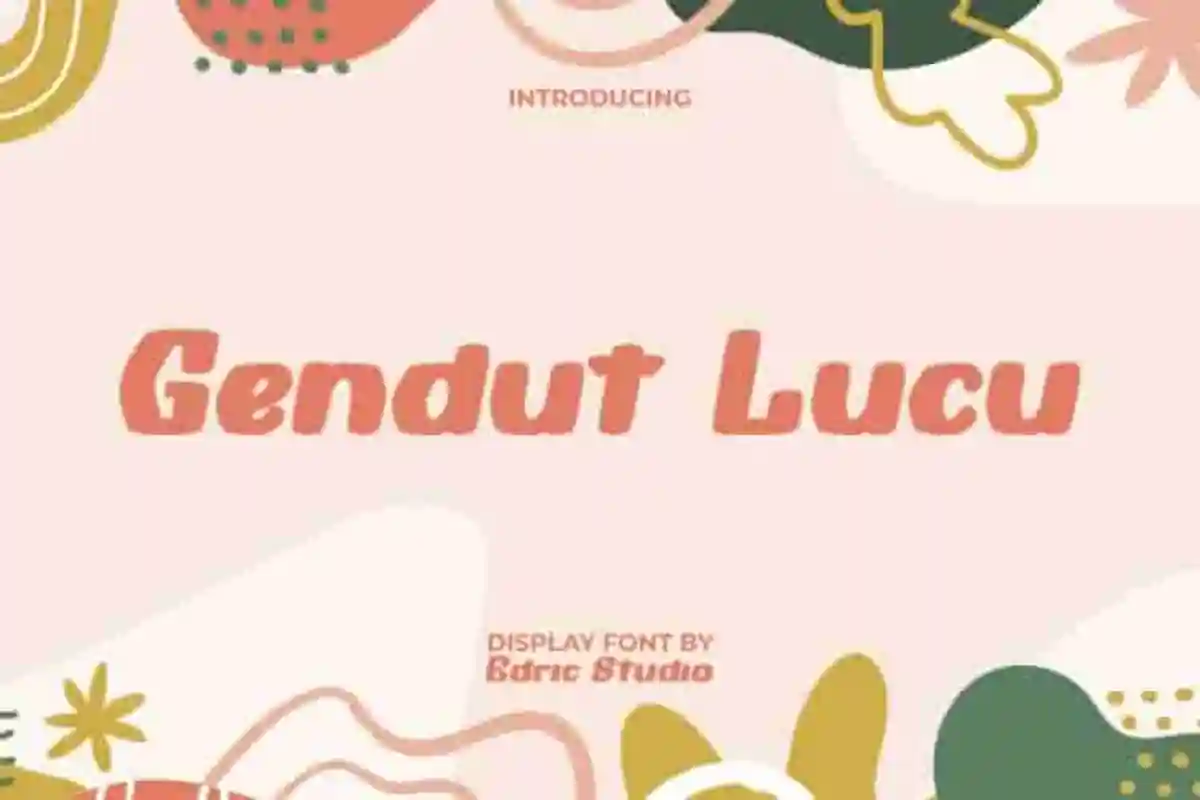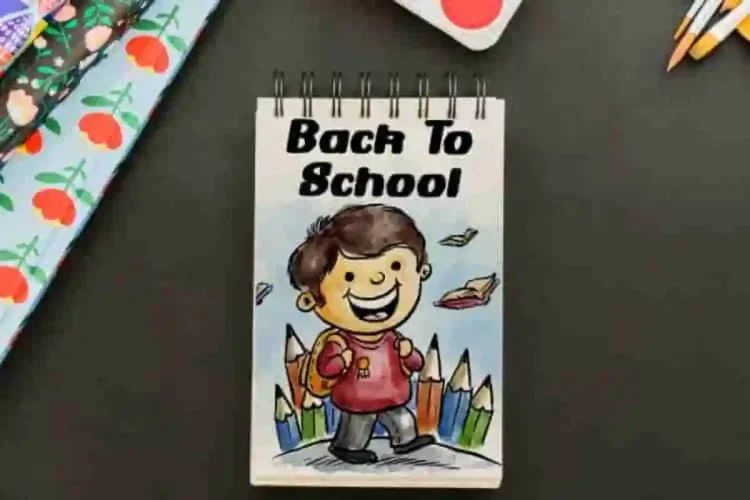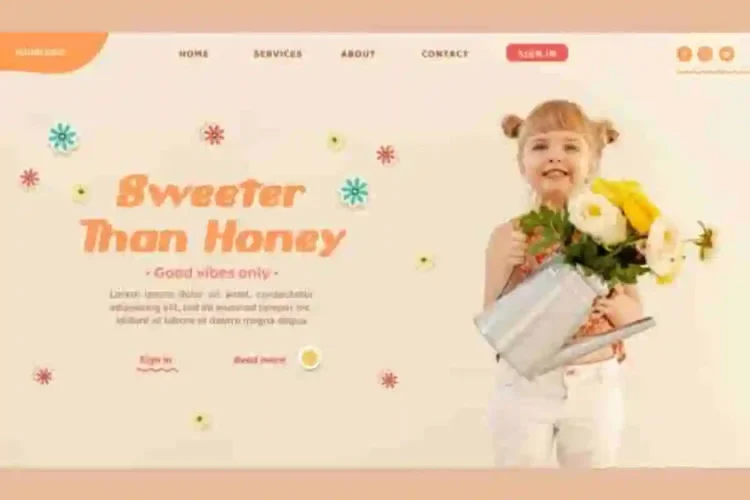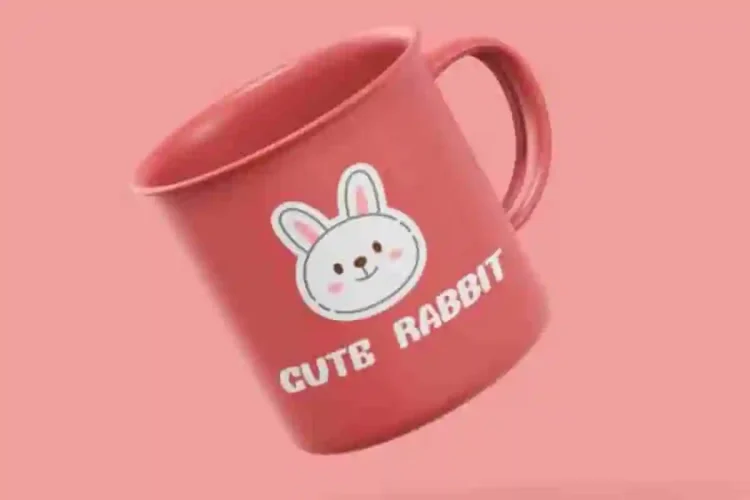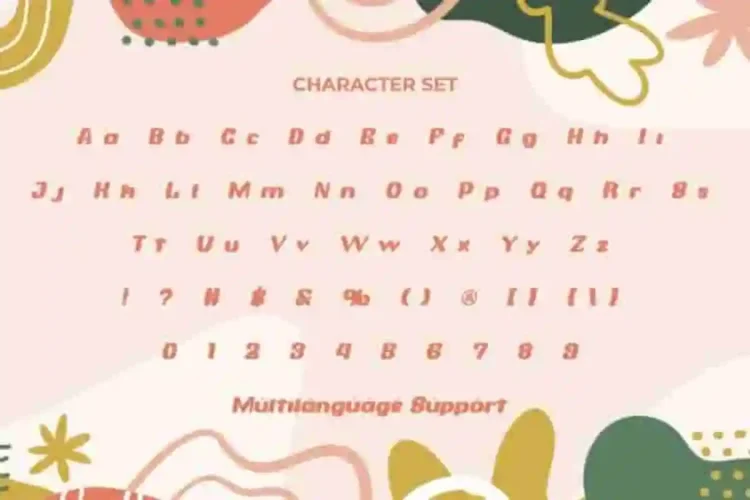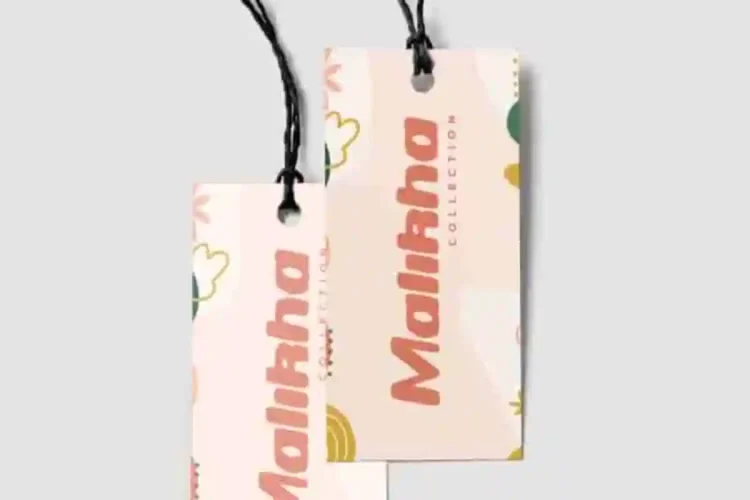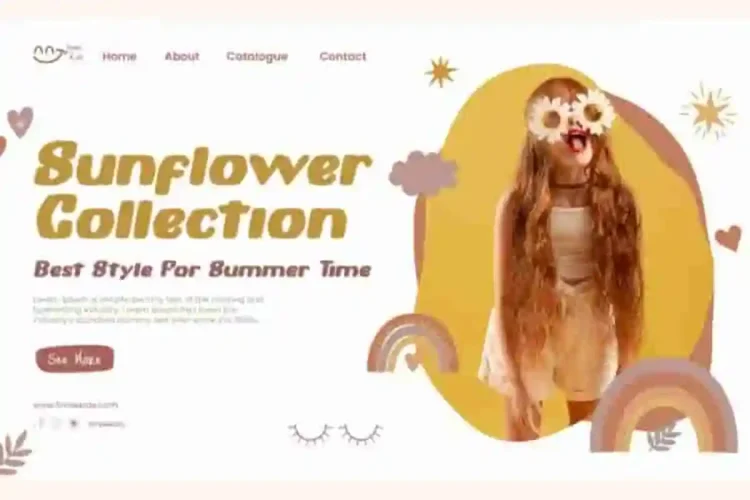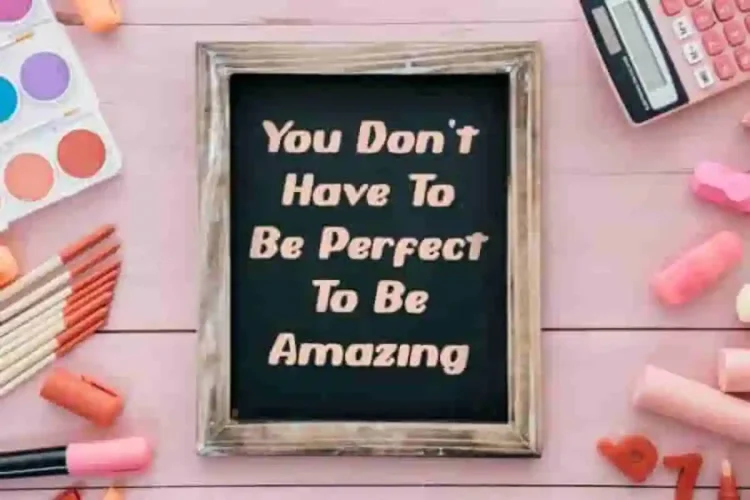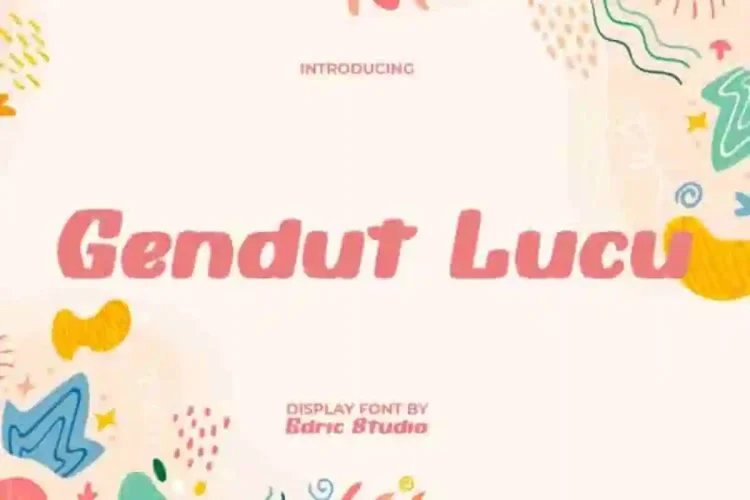
Gendut Lucu Display Font Duo
Gendut Lucu Display Font looking for a fun, cheerful, and eye-catching font to brighten your creative projects? Perfect for children’s themes, fun branding, and creative products, this cute font is the perfect way to stand out.
Gendut Lucu Display Font comes with a full set of Uppercase and Lowercase letters, Number, Punctuation, and Symbols. Its unique modern cartoon style makes it ideal for industries like toy stores, sweet product brands, apparel, education, event organizers, fashion, homeware, and crafts.
Gendut Lucu Display Font a playful typeface with unique decoration in each character. Combine different characters for a bespoke, handcrafted feel. It’s tested to work well in the Adobe Apps (Illustrator, Adobe InDesign, Adobe Photoshop) even work on Microsoft Word. All of these characters are available through the glyph panel, moreover each letter has its own unicode (PUA) so you can access all the characters easily.